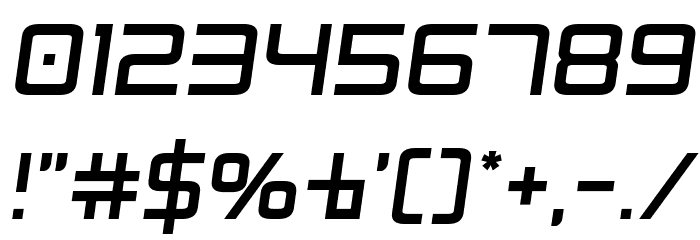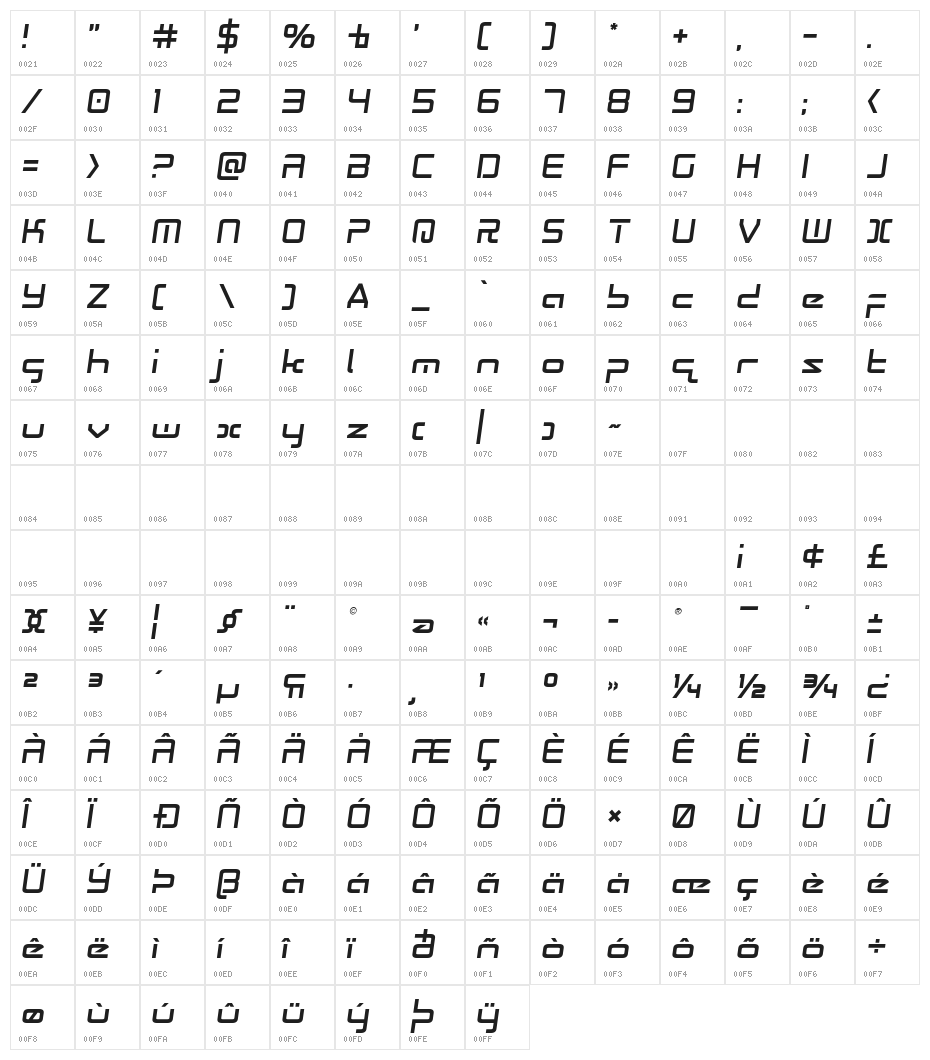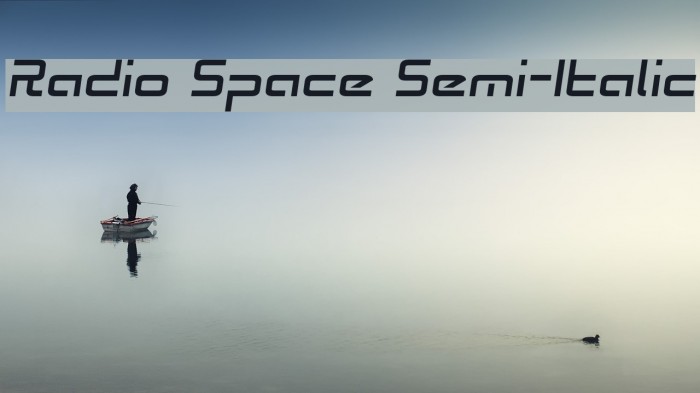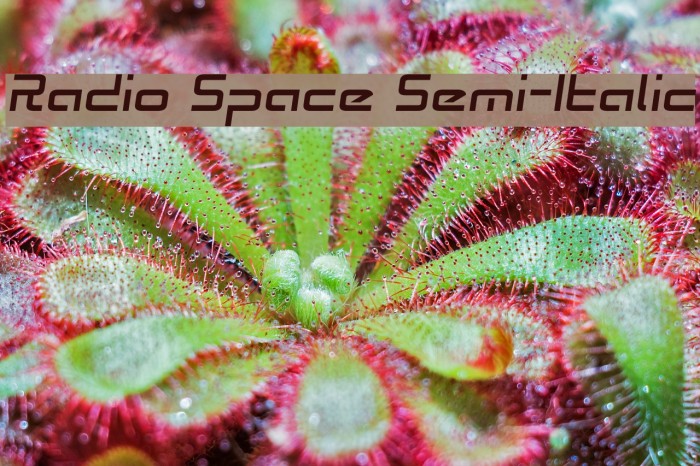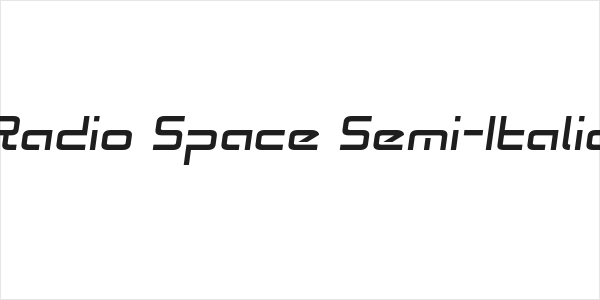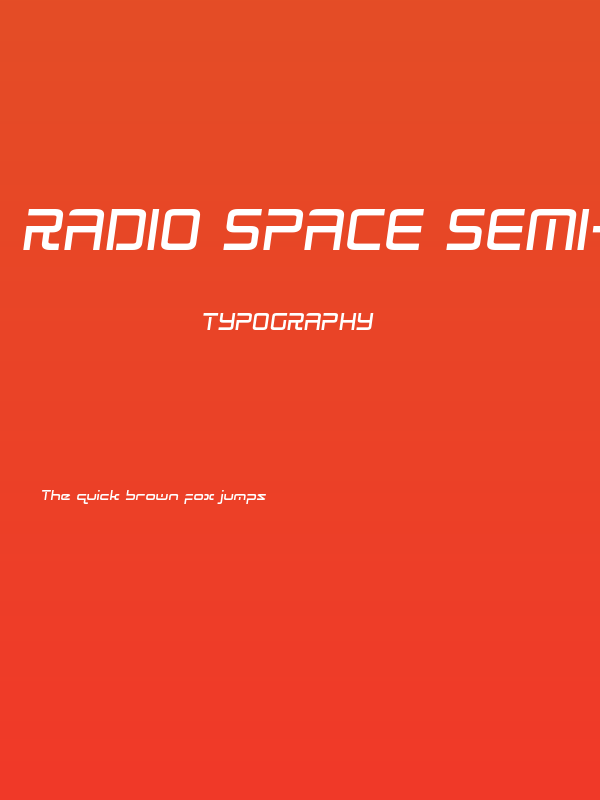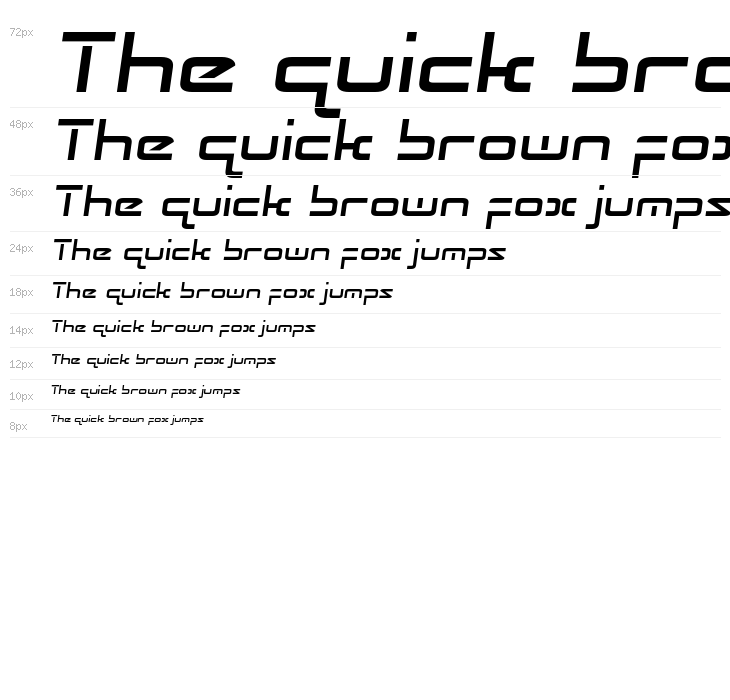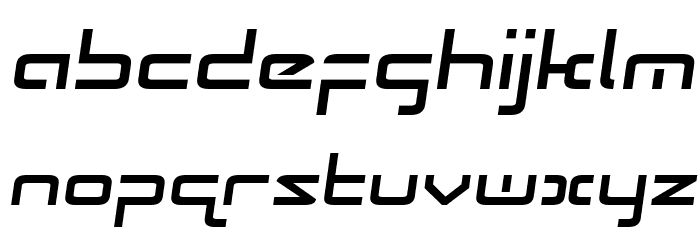
Radio Space Semi-Italic Font
Radio Space Semi-Italic Description
This font features a futuristic and sleek design, characterized by its semi-italic style that gives it a dynamic and forward-leaning appearance. The characters are geometric with rounded edges, providing a modern and tech-inspired look. The uppercase letters are bold and assertive, while the lowercase letters maintain a consistent style, enhancing readability. The numerals are distinct and align well with the overall aesthetic, making them suitable for digital displays. Special characters are crafted with the same attention to detail, ensuring uniformity across all glyphs. This font's unique style makes it ideal for projects that require a contemporary and innovative touch.
| Use Case | Headlines, Logos, Digital displays |
| Proposed Projects | Ideal for technology branding, digital interfaces, sci-fi themed projects, and modern advertising campaigns. |